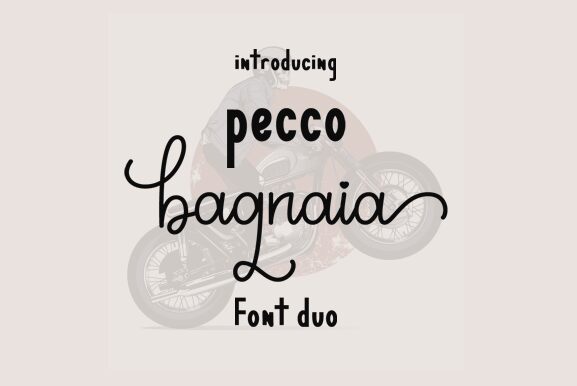
Bagnaia, a delightful creation by Cavalera Creative, is a charming handwritten font that adds a touch of whimsy and elegance to any project.
Its semi-light weight gives it a graceful appearance, perfect for invitations and greeting cards. With its unique character and fluid strokes, Bagnaia is also an ideal choice for branding materials, such as logos and packaging designs. This versatile font effortlessly enhances wedding stationery, blog headers, and even social media posts, making every piece feel personal and captivating.
Let Bagnaia be your creative companion in expressing your individuality through typography.